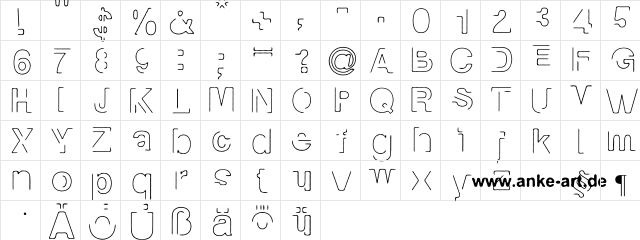
manko Regular
Design Context for manko Typeface
manko is a composed and adaptable typeface that performs quietly and consistently across a wide range of design contexts.